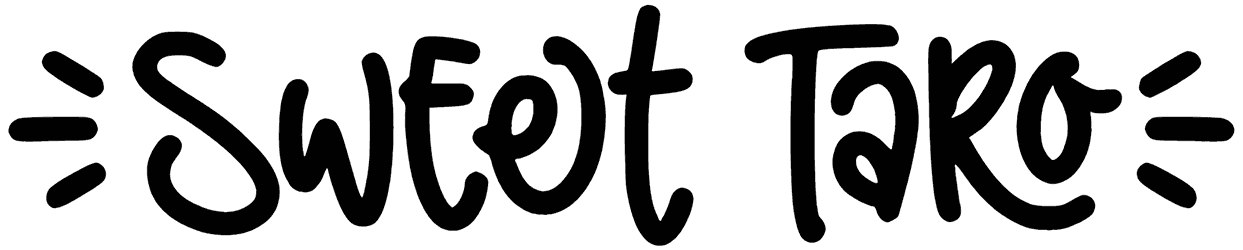
Sweet Taro Font
When it comes to promoting a toy product, childish quote, comic show, or anything in between, it’s significant how you convey the message for it to remain in mind and hold true in the souls of your followers. Here Sweet Taro font does that amazingly!
Add the fresh, organic vibes derived from this quote font in its playful cartoonish effect to your design in a heartbeat. Free of charge, plus a cakewalk process to work with, what better than this?
SWEET TARO